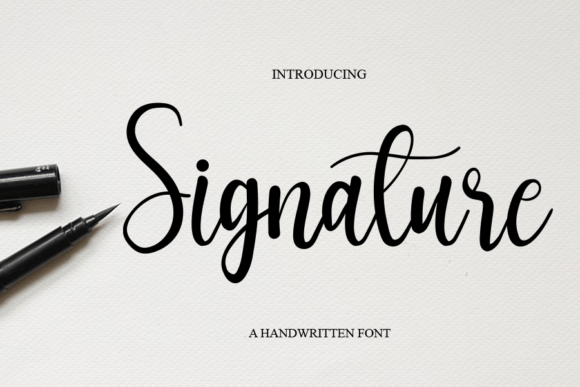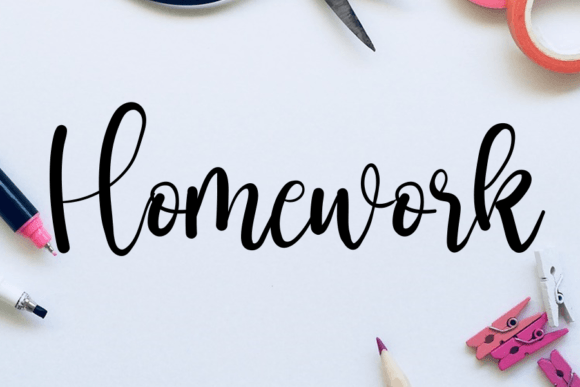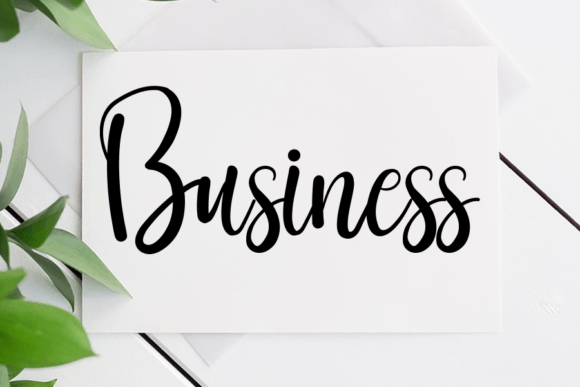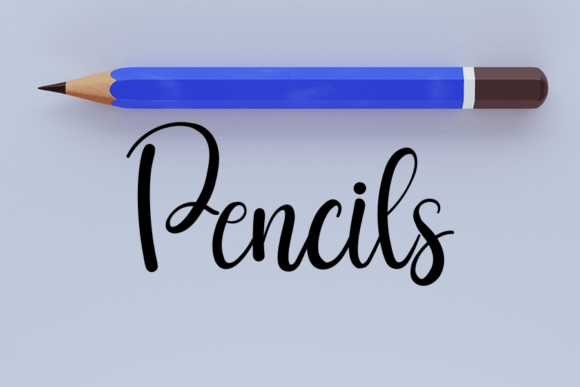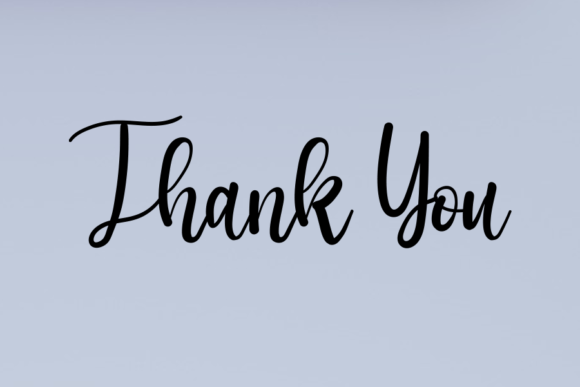
Signature Handwritten Font – Stylish and Elegant Typeface
The Signature Handwritten Font is a chic and delicate script typeface designed to bring sophistication to your creative projects. With smooth curves and elegant strokes, it captures the natural beauty of handwriting while maintaining modern clarity. Whether you’re working on greeting cards, branding, or digital content, this font makes your designs stand out.
A Script Font with Modern Elegance
The Signature Handwritten Font combines refined handwritten lines with a clean, stylish structure. Its balance of delicate flow and strong readability makes it suitable for personal and professional projects. Because of this, it adapts easily to a wide variety of creative uses.
One of the best uses of the Signature Handwritten Font is in event stationery such as invitations and thank-you notes. Its elegant handwritten style adds warmth and charm to special occasions. At the same time, it enhances greeting cards, social media quotes, and posters with a polished handwritten look.
The Signature Handwritten Font works beautifully across many applications. From branding and packaging to digital presentations and product designs, it adds a handwritten touch that feels professional and authentic. As a result, it is ideal for both print and online content.
Why Designers Love Signature Font
Designers appreciate the Signature Handwritten Font because it blends modern elegance with practical usability. Its stylish strokes bring character to projects, while its clarity ensures polished results. This combination makes it a favorite for professionals and hobbyists alike.
In summary, the Signature HandwrittenFont is a stylish, elegant, and versatile script typeface. With its graceful handwritten lines, quick installation, and broad usability, it is perfect for invitations, greeting cards, branding, and social media. Don’t miss the chance to download Signature HandwrittenFont and add sophistication to your designs.